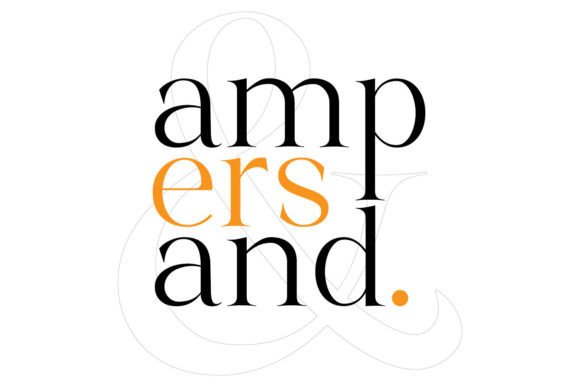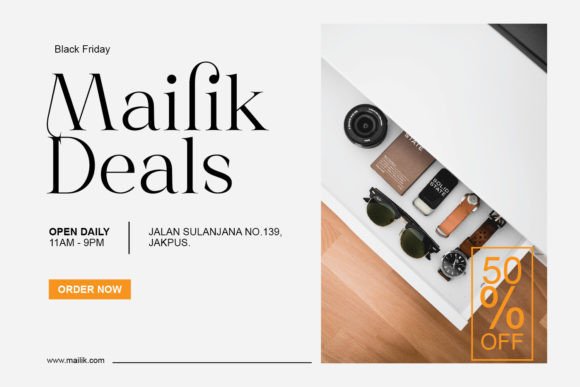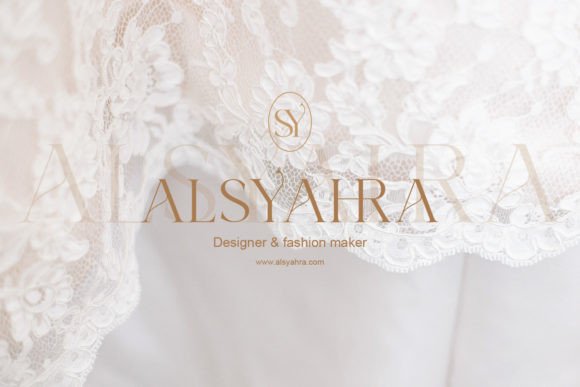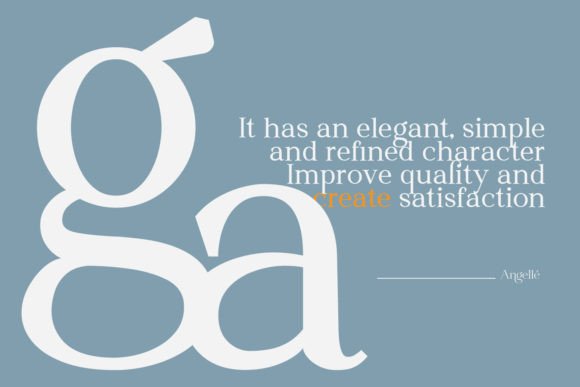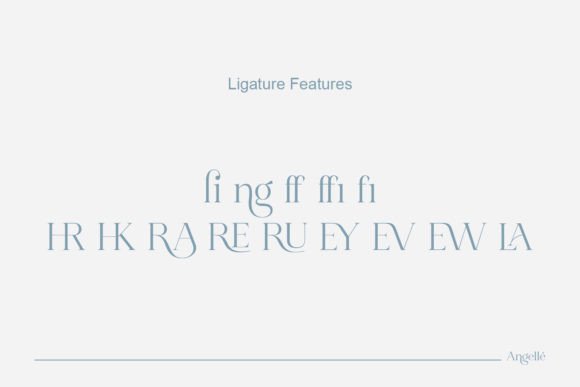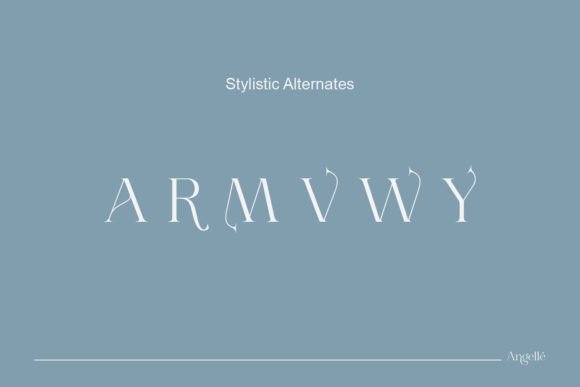
Introduction to Angelle Font
Angelle is a serif type.
Inside there are two options, namely Regular and Bold In addition, this font also comes with Ligature and Stylistic Alternates features.
Key Features of Angelle Font
Why Choose Angelle Font?